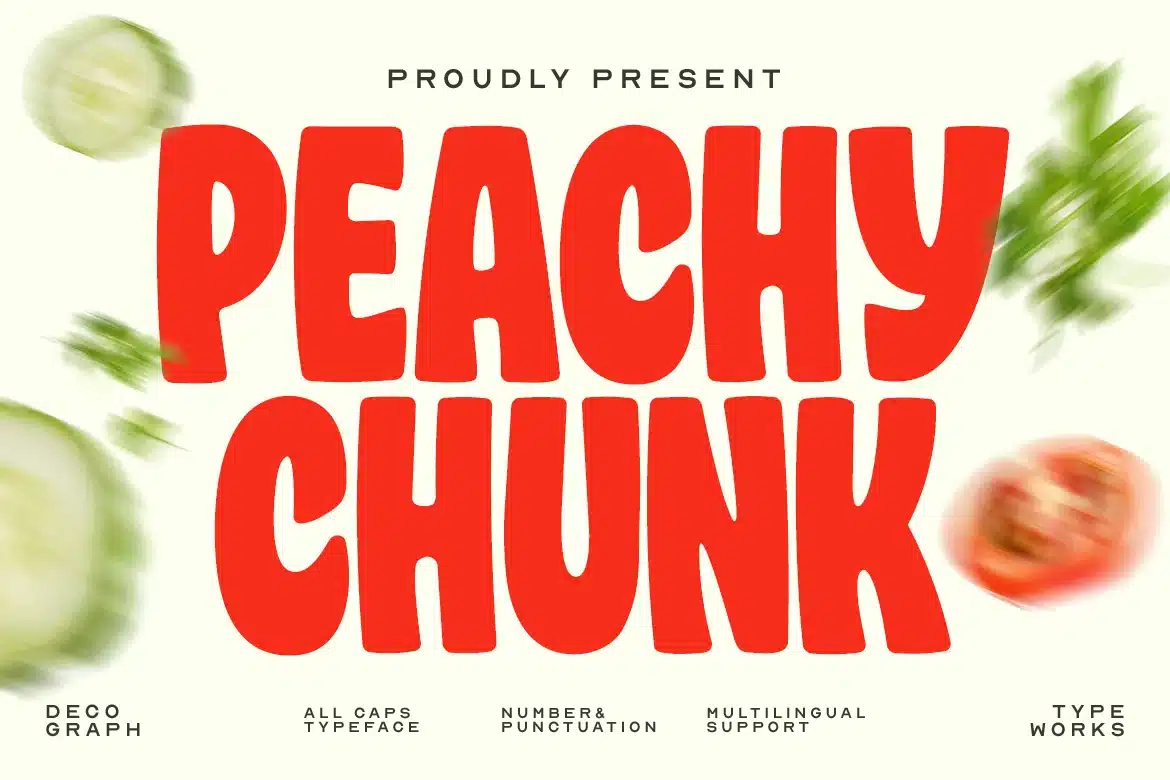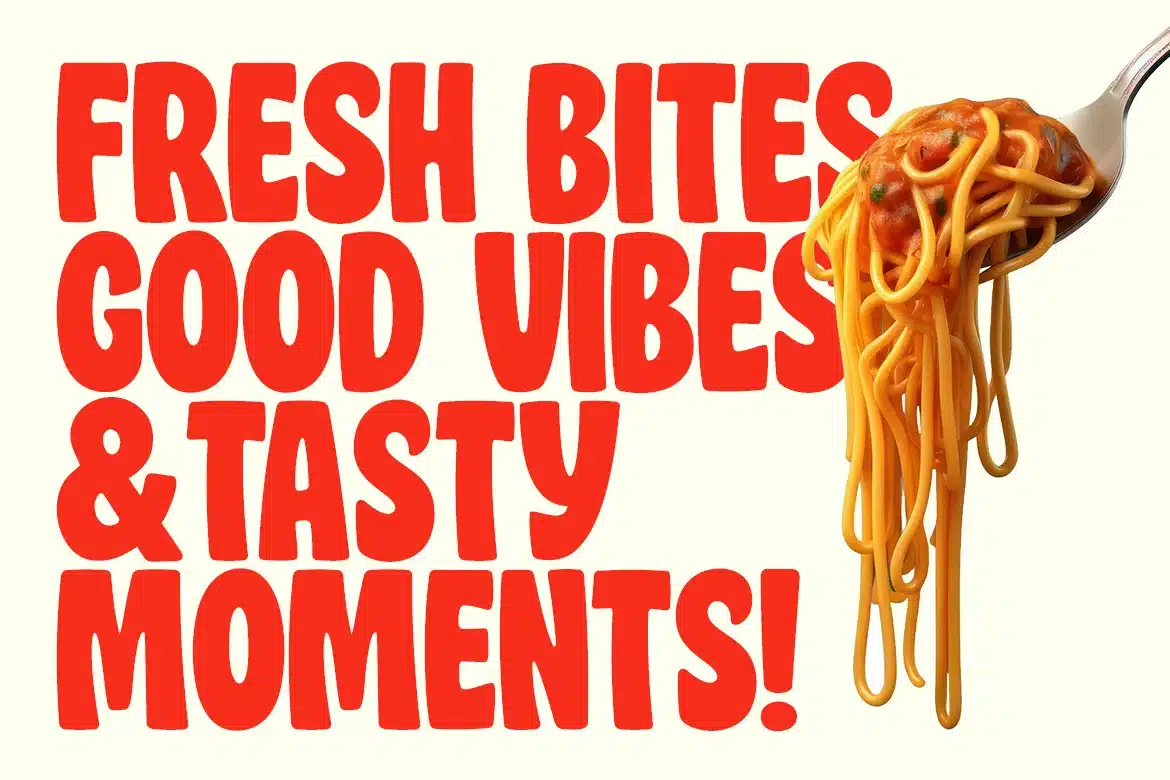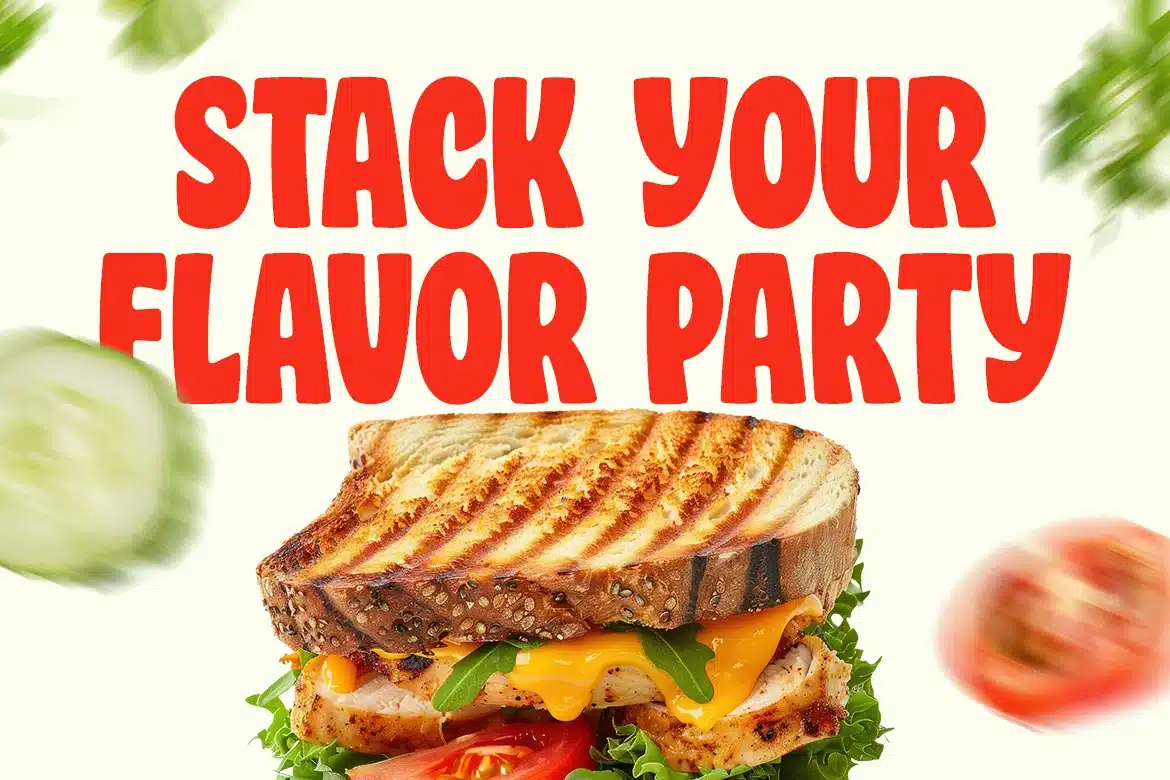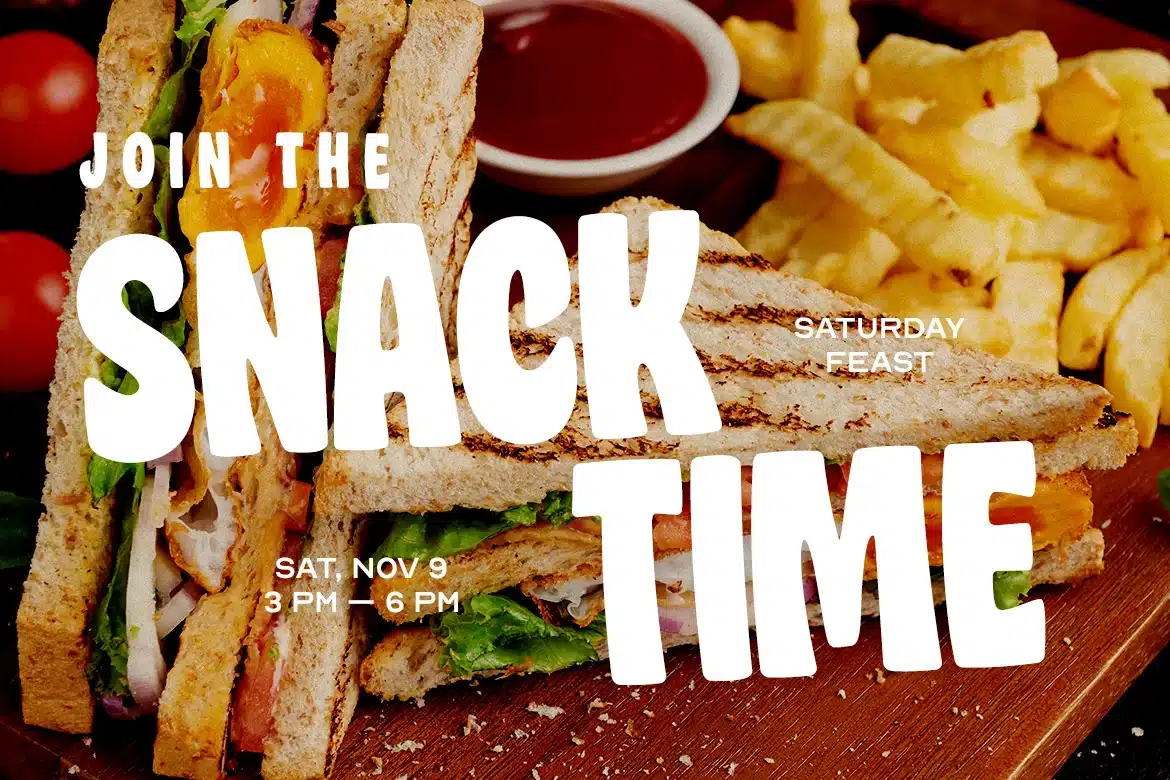
Peachy Chunk – Bold Food Font
Peachy Chunk Bold Food Display Font is a playful and bold typeface inspired by fresh fruits and vibrant food visuals. Its chunky shapes and rounded edges create a juicy, appetizing look that feels fun, friendly, and highly eye-catching. The thick letterforms give strong visual impact while maintaining a soft and approachable personality.
Best Used For:
- Food Branding
- Cafe Menus
- Restaurant Design
- Fruit Packaging
- Snack Labels
- Product Packaging
- Logo Design
- Social Media Promotions
Font Features:
- All Caps Letters
- Numbers And Punctuation